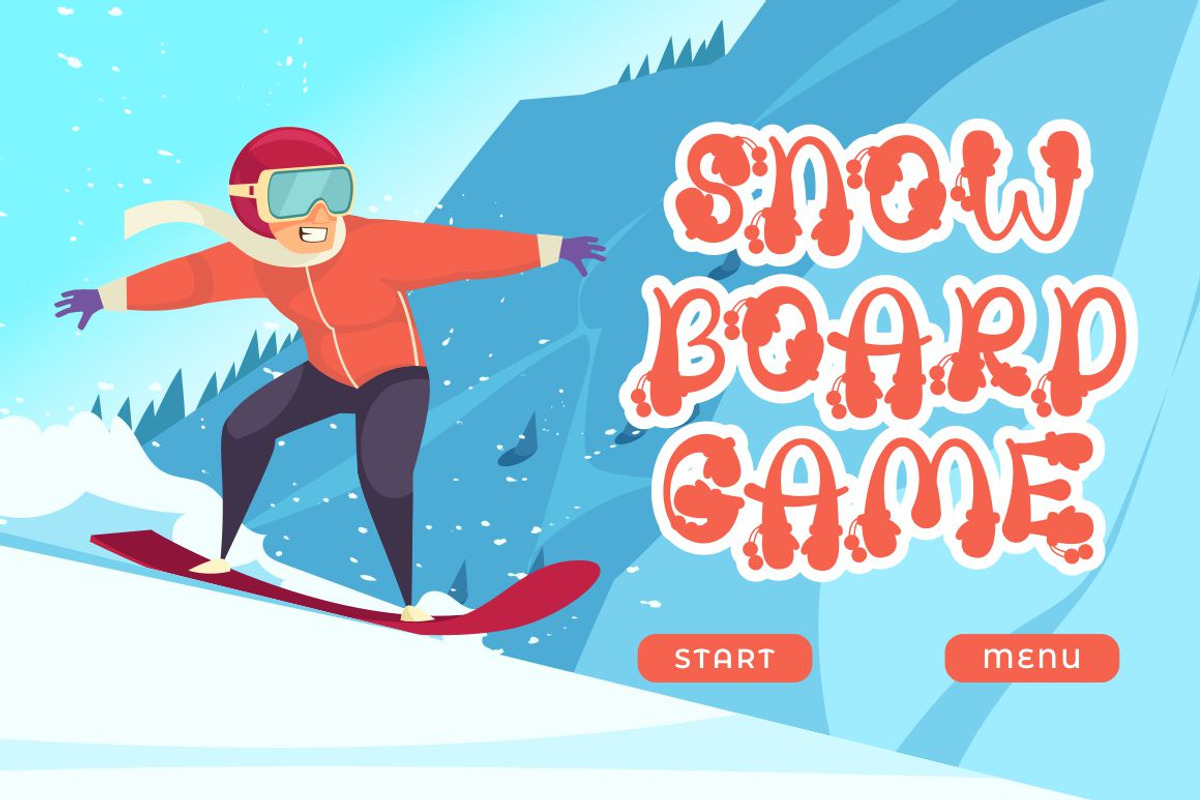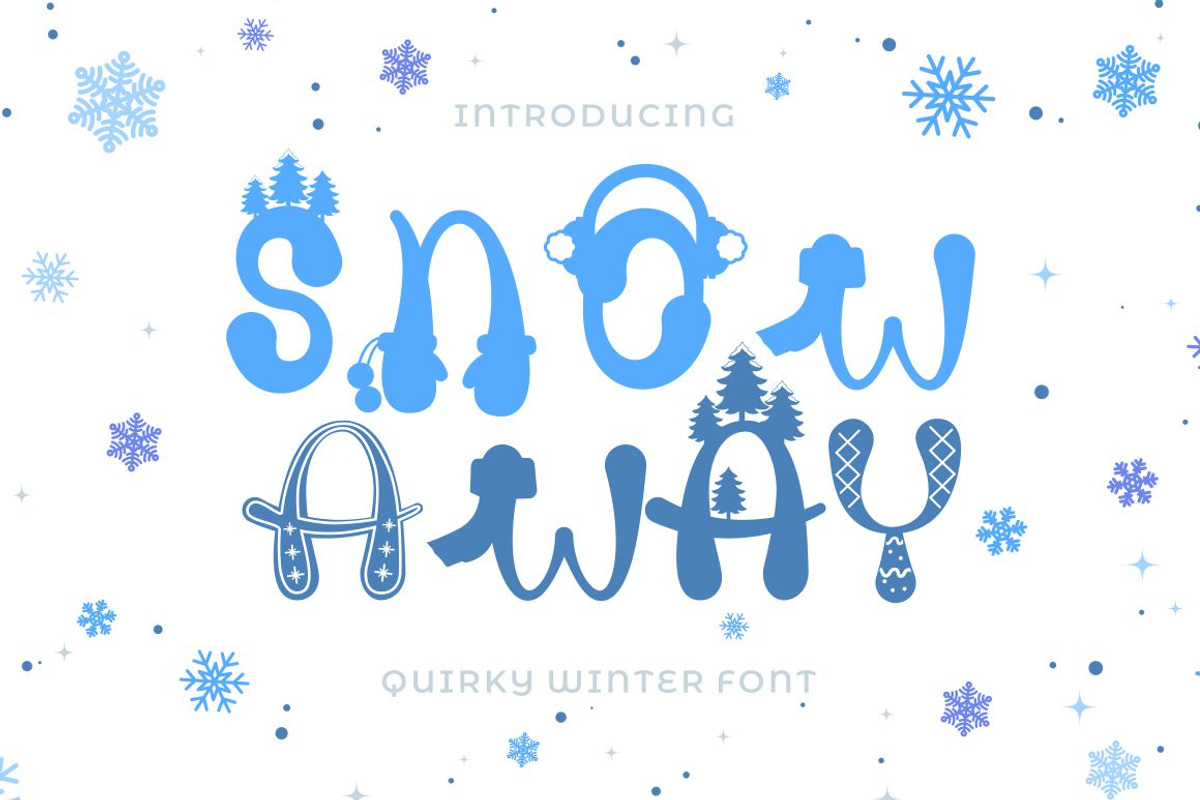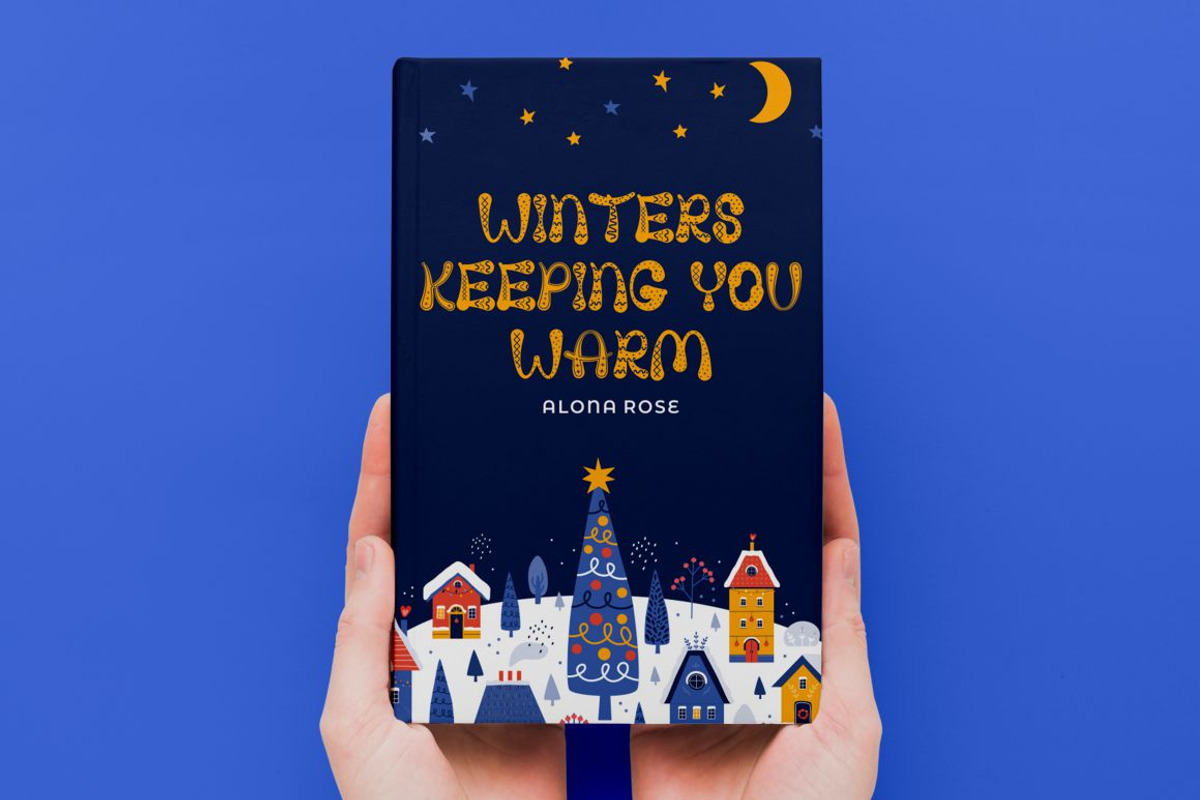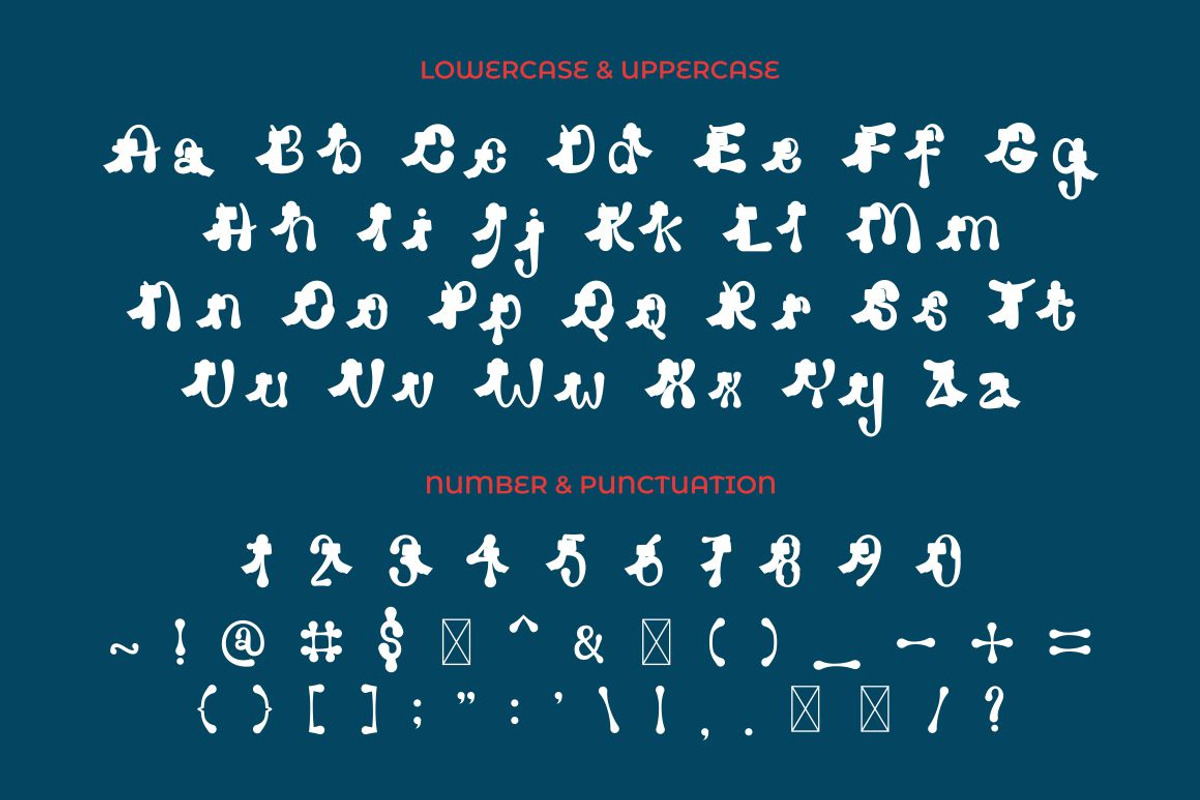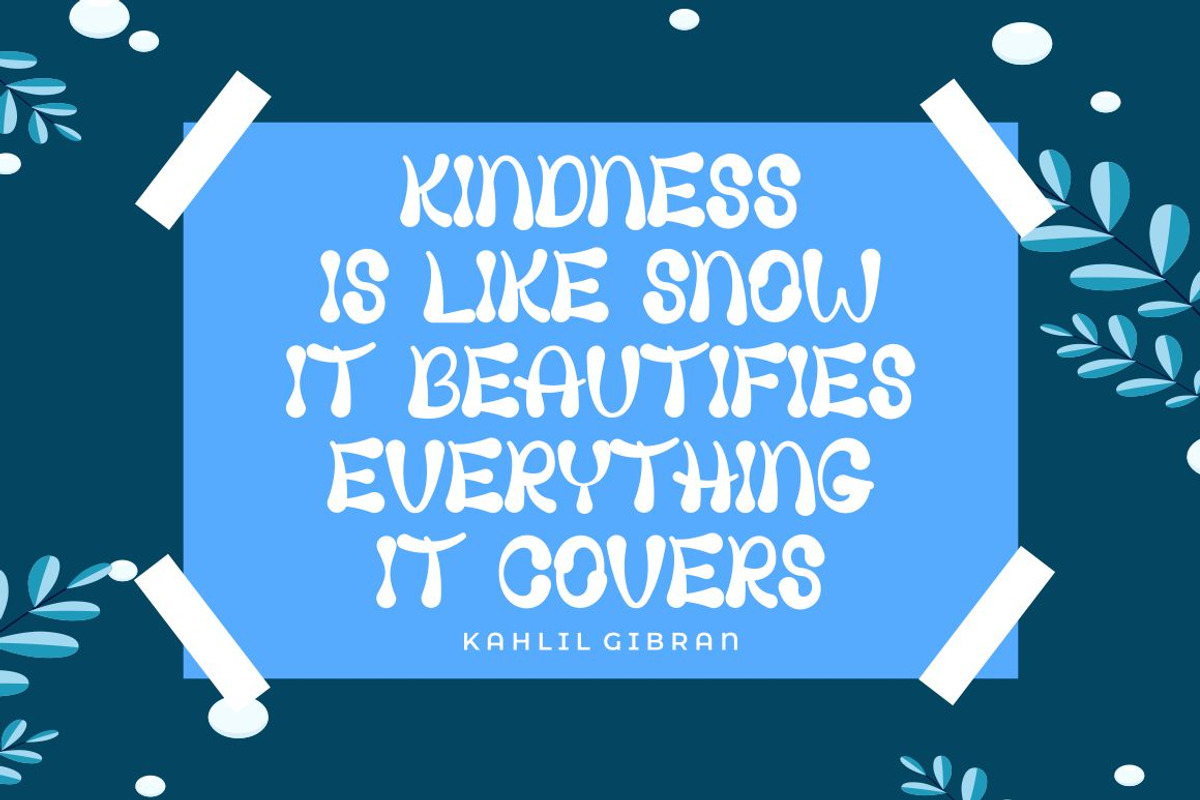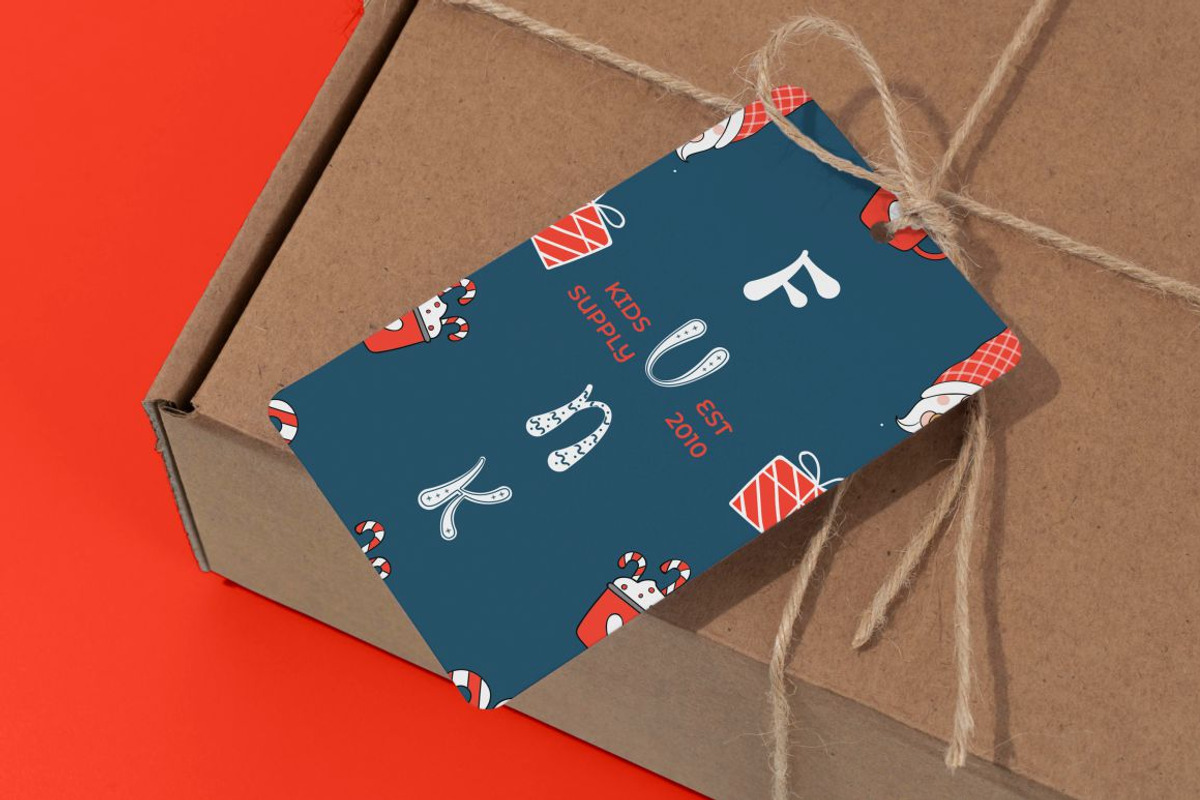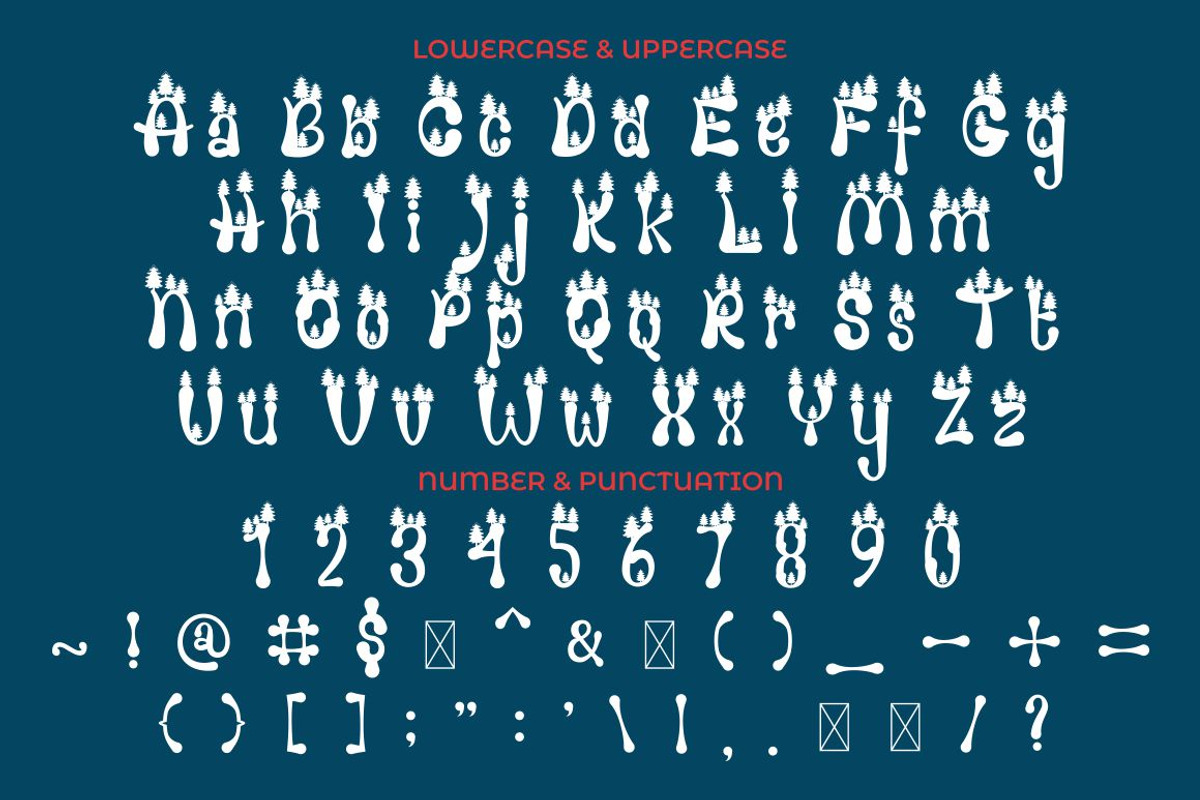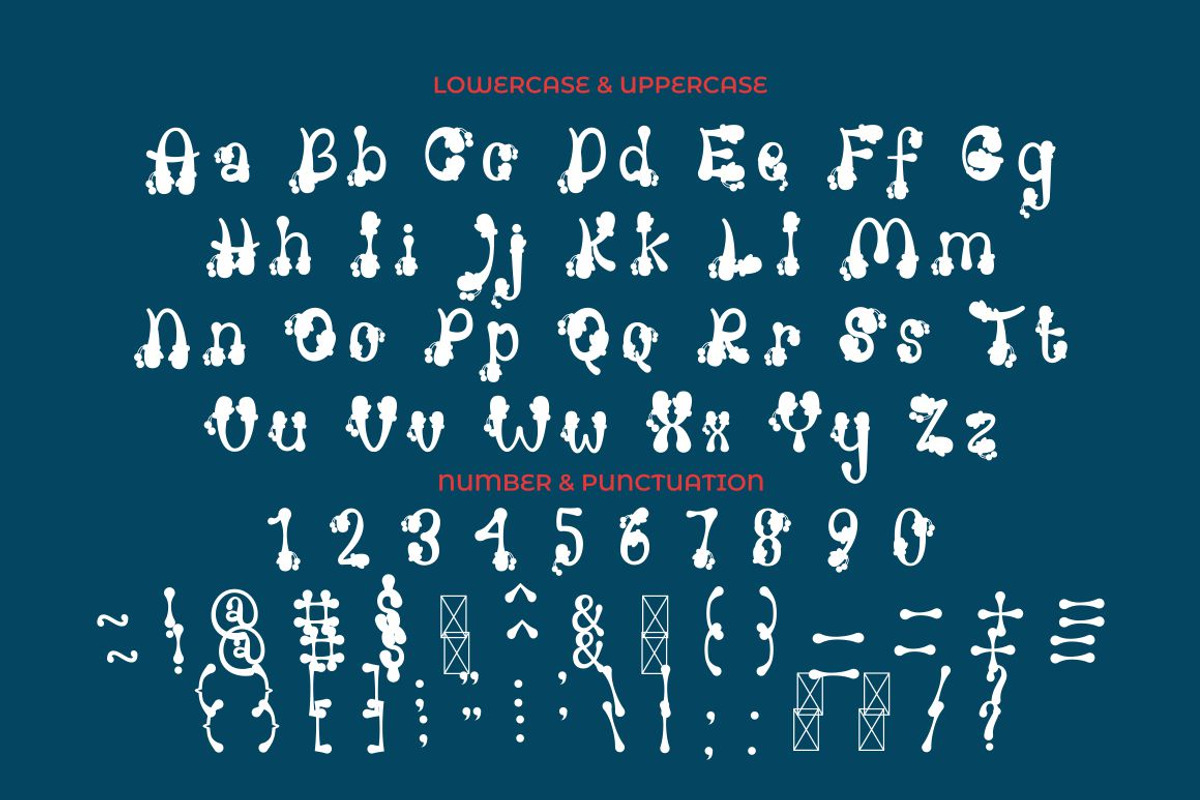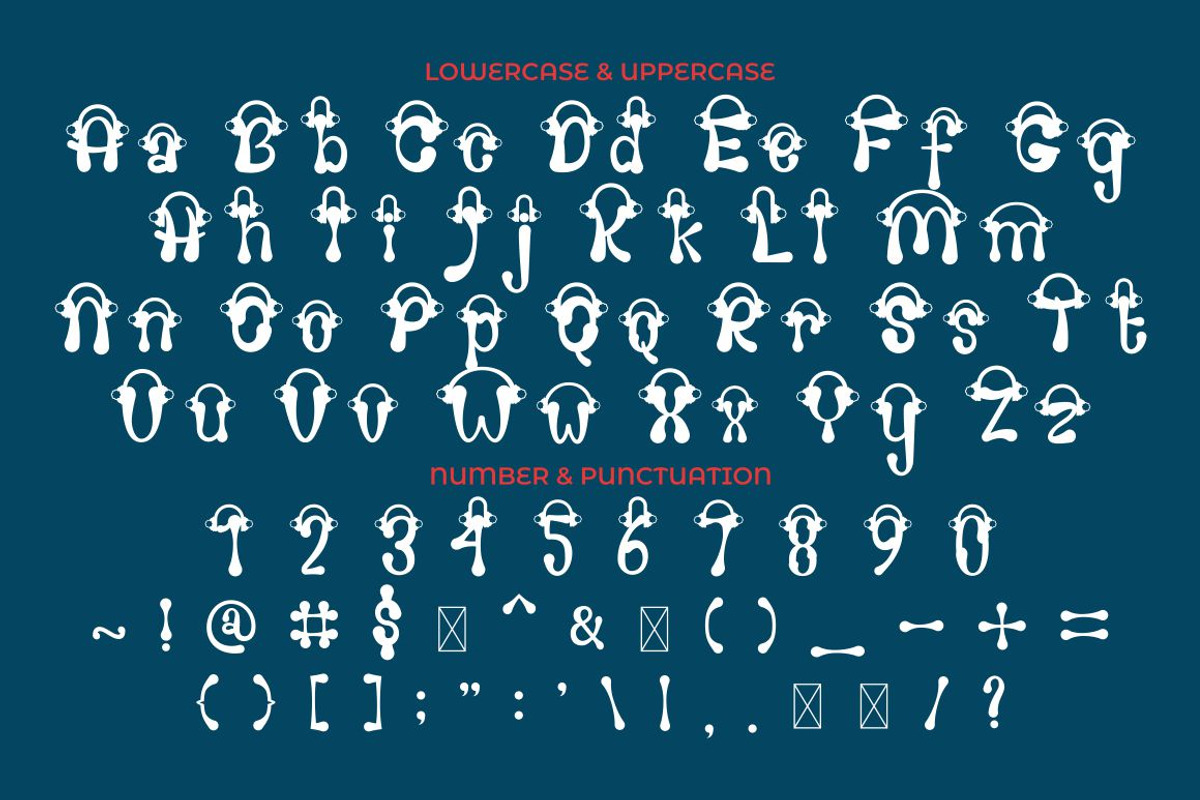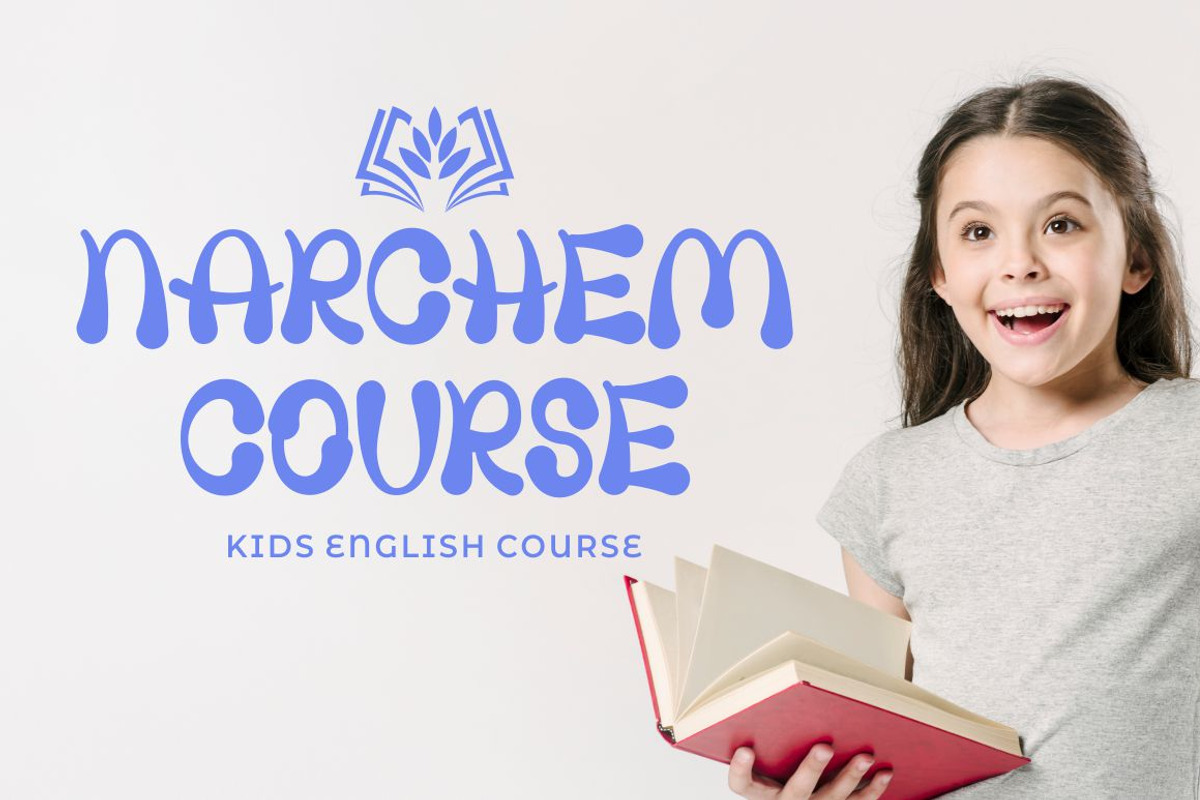
Snow Away - Quirky Winter Font
SNOW AWAY - QUIRKY WINTER FONT
Snow Away - Quirky Winter Font. Snow Away a quirky playful font with 6 different style of the font. Each style has a difference in the decoration of the ornaments. This font is a winter theme font, so all the decorations are winter-related, such as: snow flag, ribbon, bell, Christmas earmuff, Christmas tree, and sparkle. With these decorations, this font will be perfect for your winter-themed projects.
This font is also suitable for logos, branding, quotes, posters, stickers, greeting cards, invitation cards, birthday cards, quotes, crafting, svg, banners, movies, headlines and more.
This font is also support multi language.
Comes with feature :
- Opentype (Alternates And Ligatures)
- Number, Punctuation And Symbols
- Multilanguage Support.